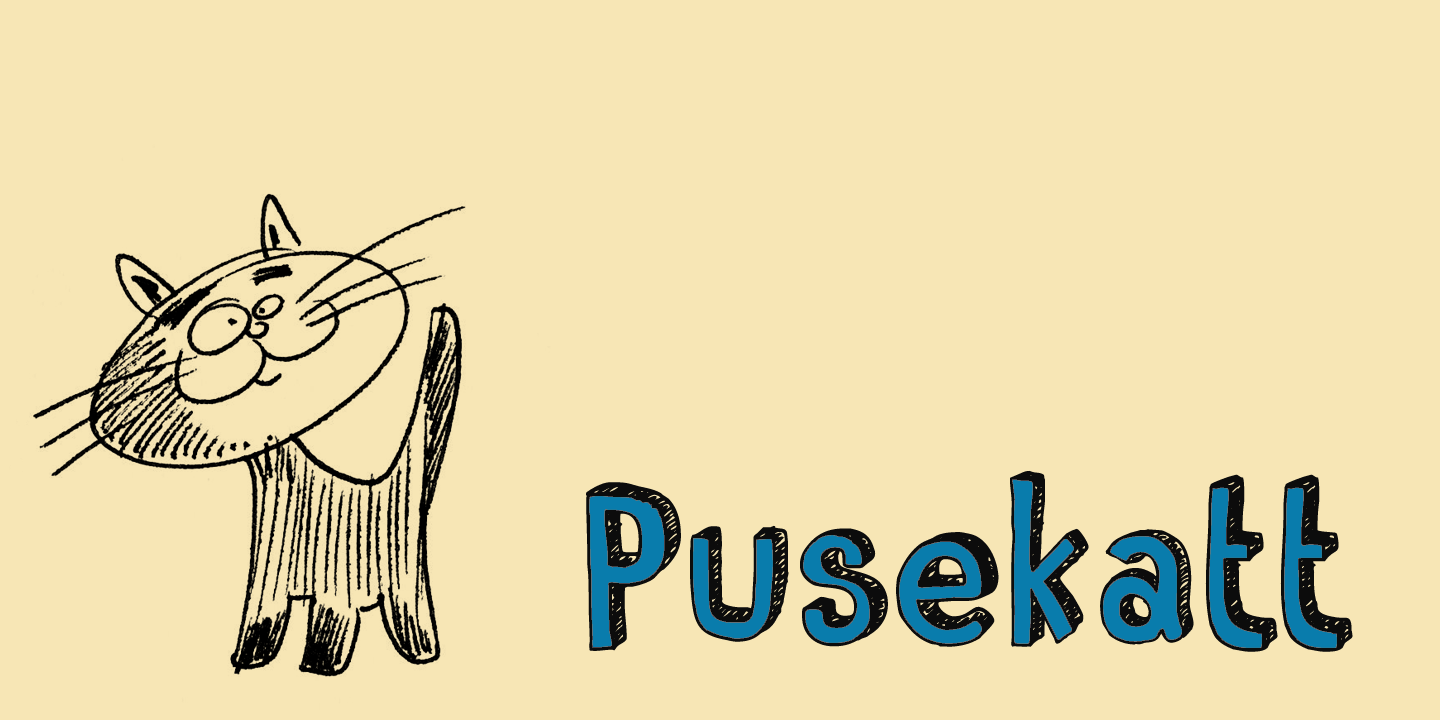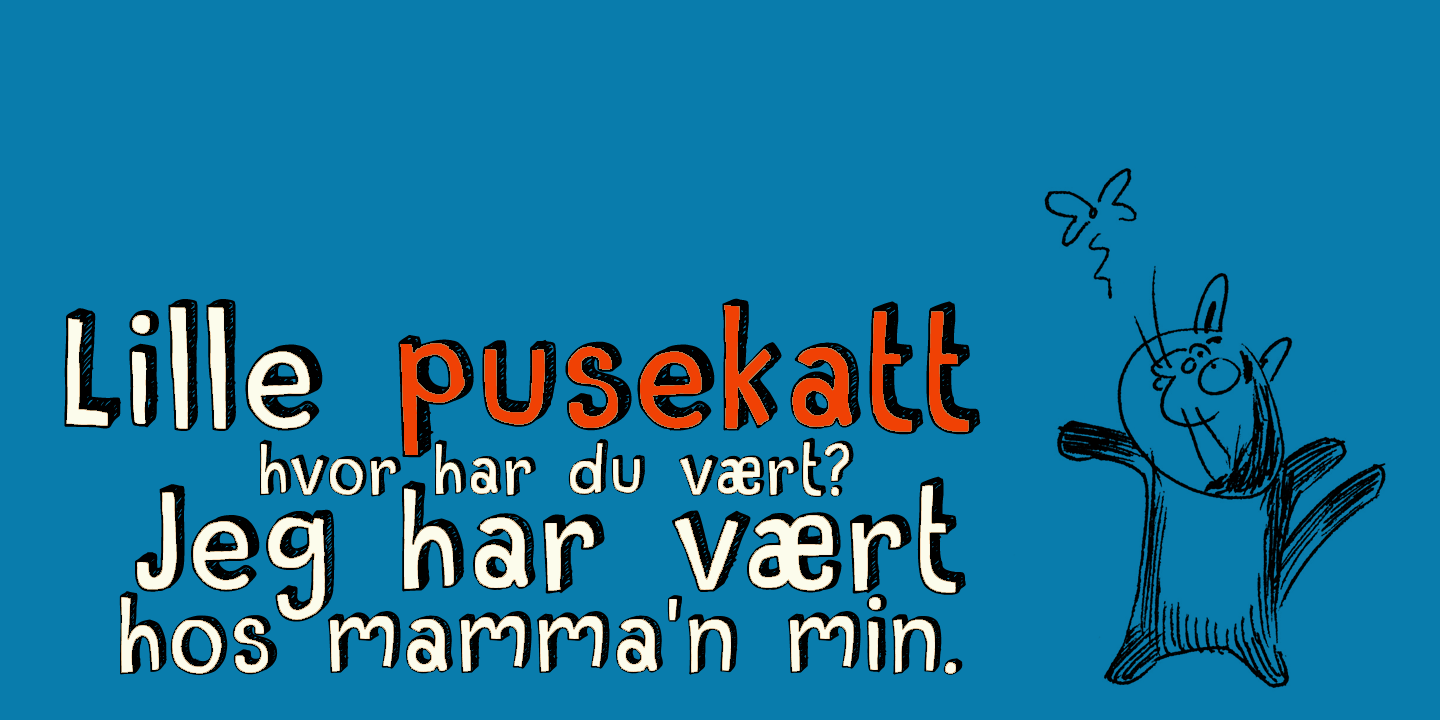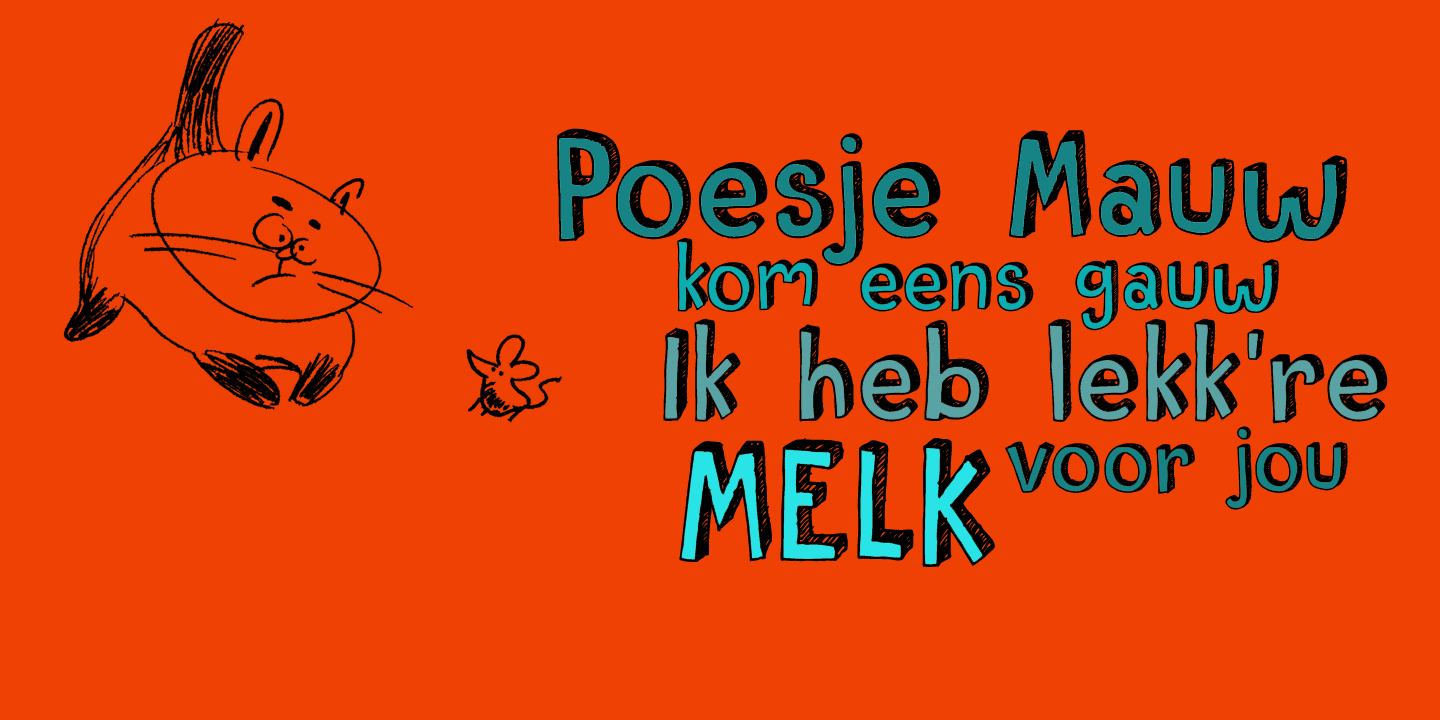
Pusekatt
Pusekatt means Pussycat in Norwegian. It was finished on a rather gloomy monday, which reminded me of Norway and I just like cats. There you have it: the naming of fonts explained. It ain't rocket science for sure!
There is nothing gloomy about Pusekatt font: it is a very lively, happy and useful poster face. It comes with extensive language support, one alternative (yes, one) and a lot of feline grace.